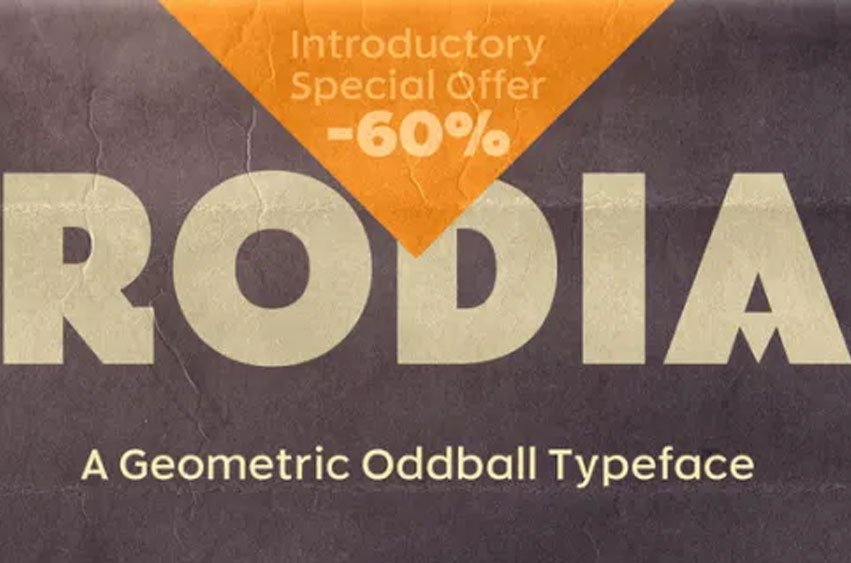
Rodia Font is an Oddball Geometric Sans Typeface consisting of nine weights in both roman and oblique.
It’s a geometric sans with a twist that’s perfect for branding and identity projects – it will also give your body text a unique voice.